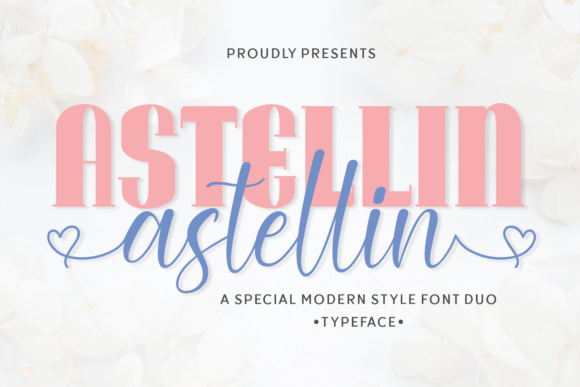
Astellin Font: Elevate Your Design Game with Astelin Duo
In the realm of typography, few fonts manage to strike a balance between style, versatility, and elegance. However, Astelin Duo, a unique typographic creation, has successfully achieved this feat. This distinctive typeface features a dynamic duo of display and script fonts that seamlessly amalgamate style and versatility, making it an ideal choice for designers seeking to elevate their projects.
The Birth of Astelin Duo
Astelin Duo is not just another font; it’s a meticulously crafted typographic solution designed to cater to a wide range of design endeavors. Its creation is a testament to the evolving needs of the design community, where the demand for fonts that are both stylish and versatile continues to grow. Astelin Duo steps in to fill this gap, offering a fresh perspective on typography that is both elegant and functional.
A stunning example of Astelin Duo in action, showcasing its elegance and versatility.
Key Features of Astelin Duo
Astelin Duo boasts several key features that set it apart from other fonts in the market:
- Dynamic Duo of Fonts: Astelin Duo comes with two distinct fonts – a display font and a script font. This dynamic duo allows designers to experiment with different styles and tones within their projects, adding depth and character.
- Seamless Style and Versatility: One of the standout qualities of Astelin Duo is its ability to blend style with versatility. Whether you’re working on a website, a print project, or a digital application, Astelin Duo adapts effortlessly, ensuring your design always looks its best.
- Elegant Aesthetic Appeal: Elegance is at the core of Astelin Duo’s design. With its sophisticated lines, balanced proportions, and beautiful curves, this font exudes a sense of luxury and refinement, making it perfect for projects where making a statement is key.
- Wide Range of Applications: From emphatic headers that grab attention to captivating captions that draw readers in, Astelin Duo’s inherent dexterity makes it suitable for a broad variety of applications. Its flexibility is one of its most compelling features, allowing designers to push the boundaries of their creativity.
Applications of Astelin Duo
The versatility of Astelin Duo means it can be used in a multitude of design projects. Here are some of the areas where Astelin Duo truly shines:
- Branding: Create a lasting impression with Astelin Duo’s elegant and sophisticated look, perfect for logos, business cards, and brand guidelines.
- Web Design: Enhance your website’s aesthetic appeal with Astelin Duo, using its display font for headings and the script font for adding a personal touch to your content.
- Print Design: Whether you’re working on posters, brochures, or flyers, Astelin Duo brings a level of sophistication and style that’s hard to achieve with standard fonts.
- Digital Media: For digital platforms such as social media graphics, presentations, and digital magazines, Astelin Duo offers a fresh and modern look that captures viewers’ attention.
“Astelin Duo has completely transformed my design workflow. Its elegance and versatility have opened up new creative possibilities for me and my team.”
Why Choose Astelin Duo?
In a sea of fonts, Astelin Duo stands out for several reasons:
- Unique Design: Astelin Duo offers a fresh take on typography, providing designers with a unique alternative to more traditional fonts.
- Time-Saving: With Astelin Duo’s versatility, designers can work more efficiently, using a single font family for multiple aspects of their project.
- Enhanced Creativity: The combination of display and script fonts within Astelin Duo encourages experimentation and creativity, allowing designers to push the boundaries of their projects.
Getting Started with Astelin Duo
Integrating Astelin Duo into your design projects is straightforward:
- Experiment: Don’t be afraid to experiment with both the display and script fonts. Astelin Duo’s flexibility means you can achieve a wide range of effects and styles.
Astelin Duo is more than just a font; it’s a design solution that bridges the gap between style, elegance, and versatility. Whether you’re a seasoned designer or just starting out, Astelin Duo offers the tools you need to elevate your design game. With its dynamic duo of display and script fonts, Astelin Duo is poised to become an indispensable part of your creative toolkit. Embrace the sophistication and flexibility of Astelin Duo and discover new possibilities in your design endeavors.